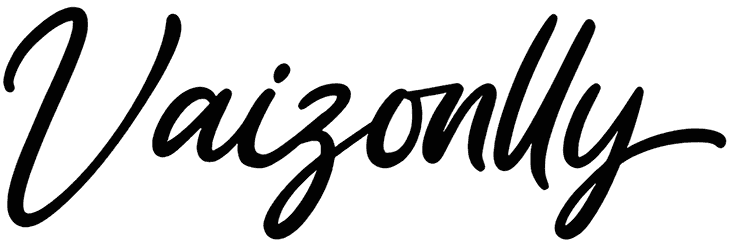
Vaizonlly Font
Vaizonlly is a calligraphy font with a down-to-earth and intriguing flourish. This handwritten font has a lovely design for many different projects with any theme. With almost A-Z characters, Vaizonlly will give you an elegant item for a lot of designs, such as Packaging, business cards, cosmetics products, and other kinds of stuff.